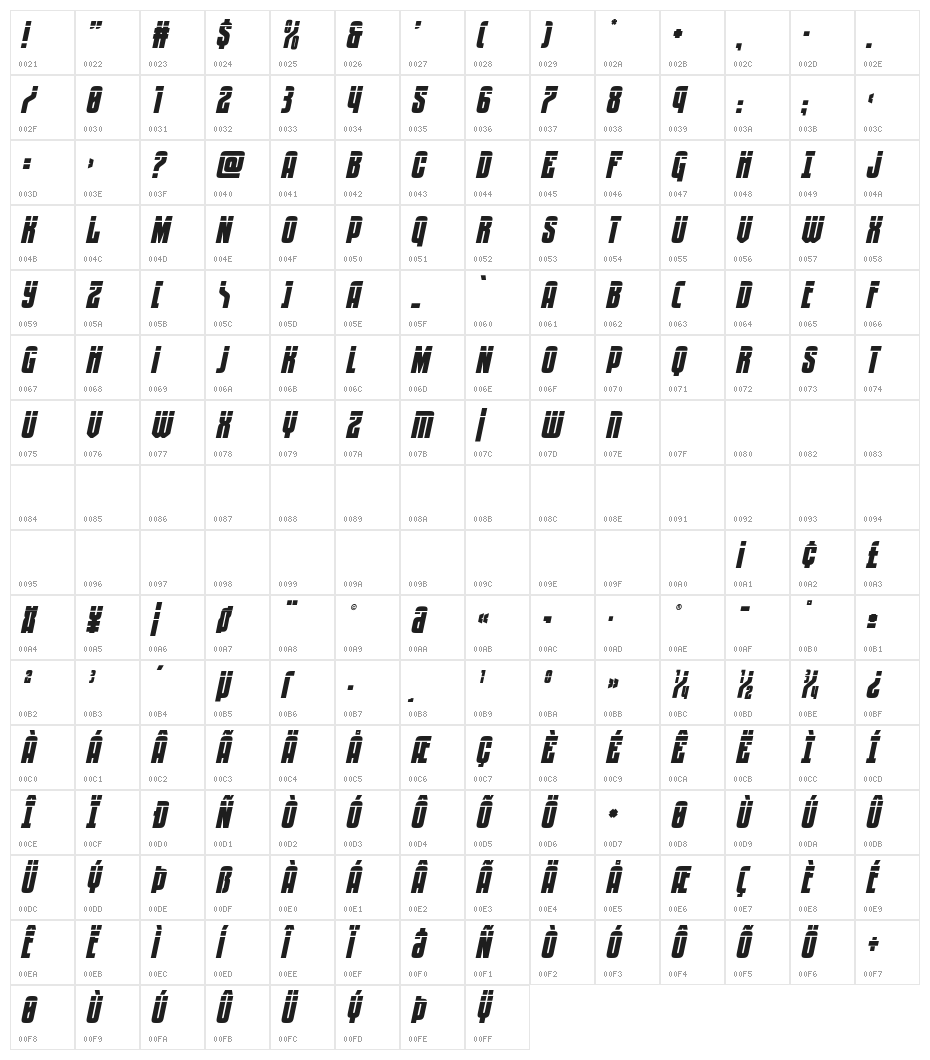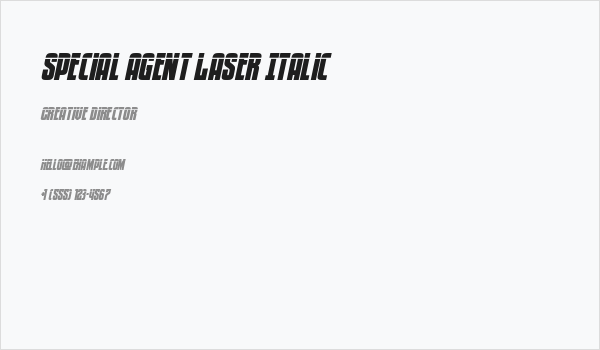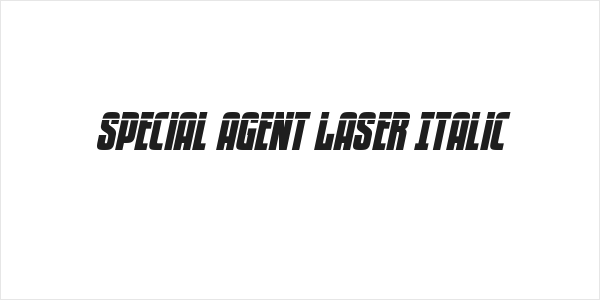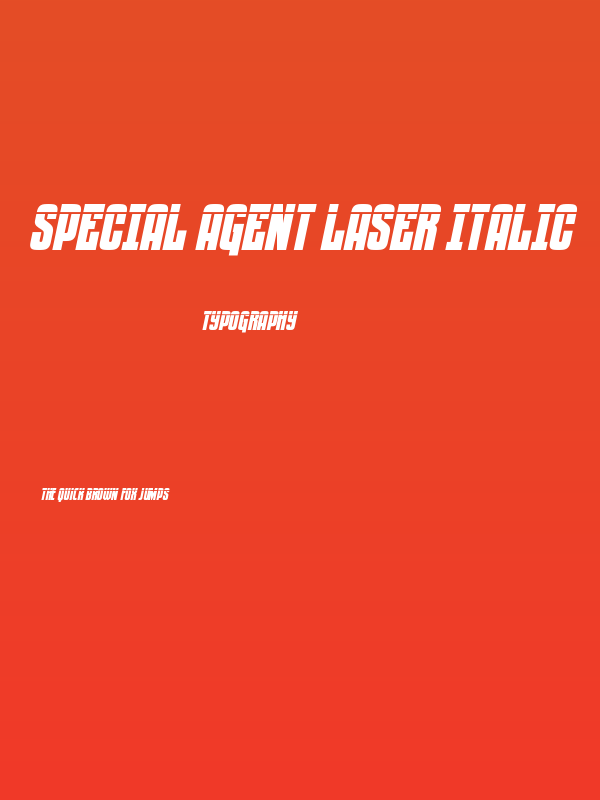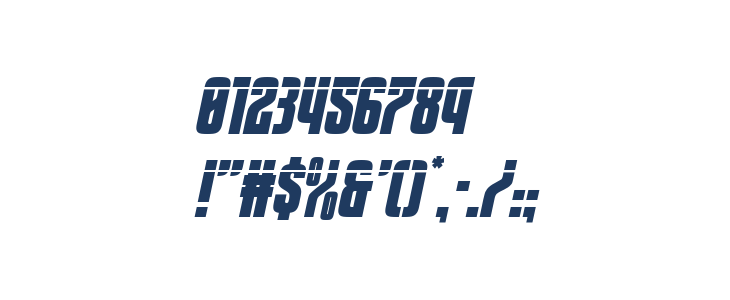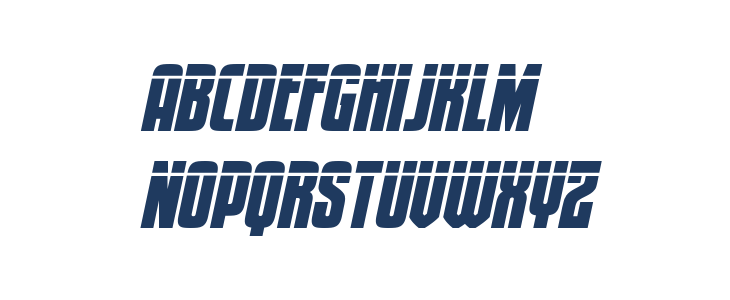
Special Agent Laser Italic Font
Special Agent Laser Italic Description
This font features a bold and dynamic style with a distinct italic slant, giving it a sense of motion and urgency. The characters are tightly spaced, enhancing its compact and impactful appearance. The strokes are thick and consistent, providing a high contrast that makes the font stand out. Its design is modern and sleek, suitable for projects that require a strong visual presence. The uppercase and lowercase letters maintain a uniform style, while the numerals and special characters are designed to complement the overall aesthetic.
| Proposed Projects | Ideal for use in action-themed posters, video game titles, sports branding, and dynamic advertising campaigns. |